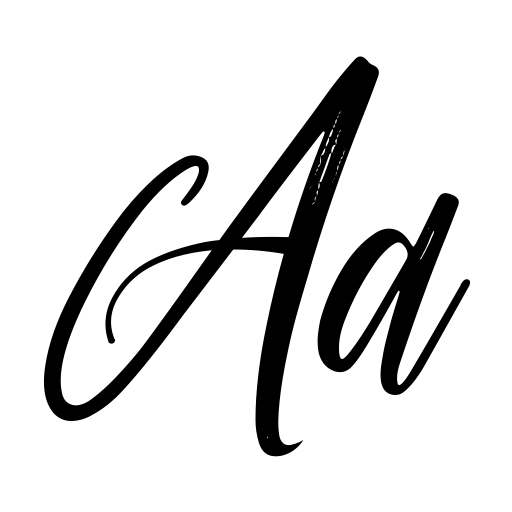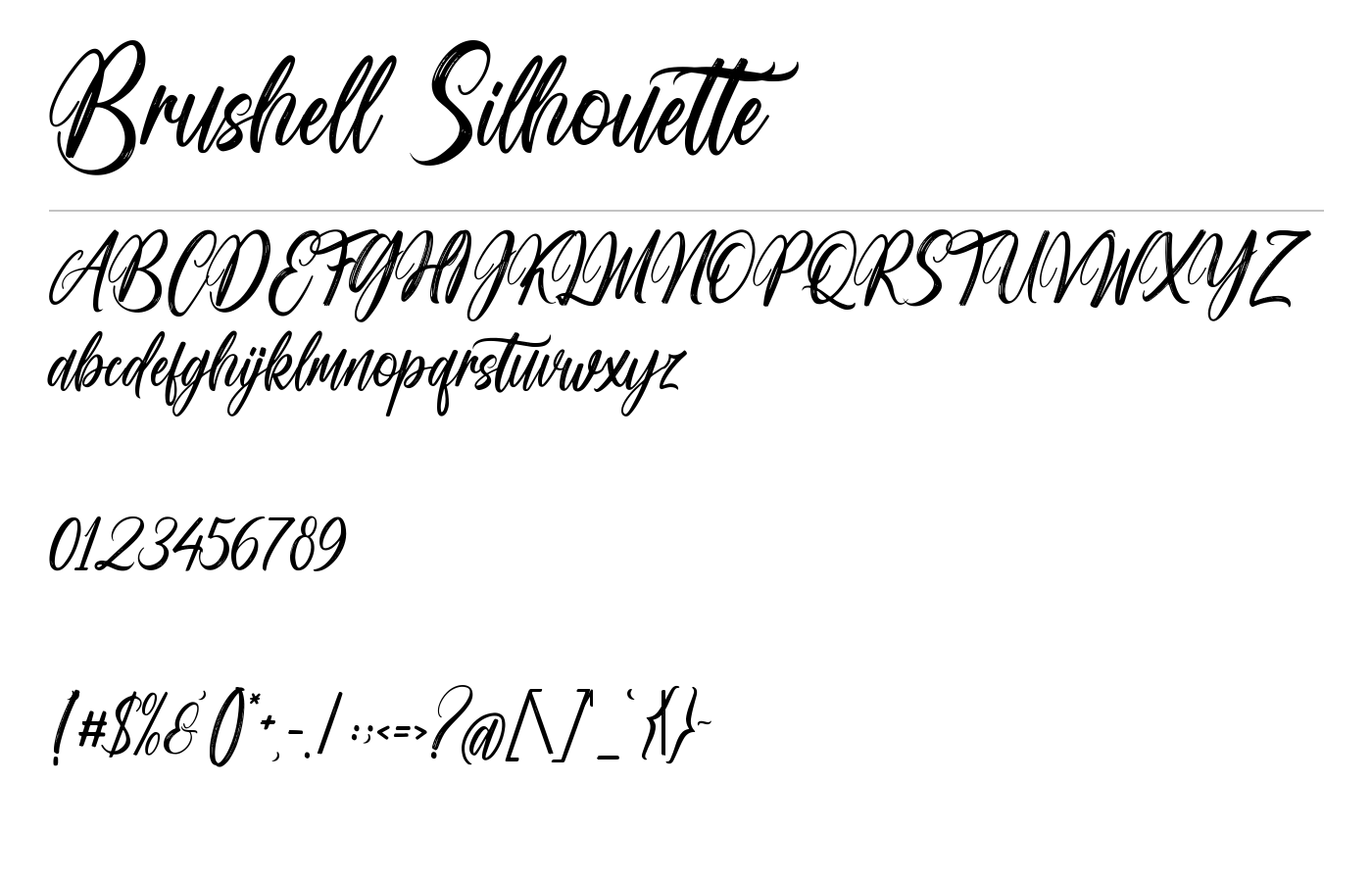
Brushell Silhouette is an elegant script font that mimics smooth, hand-painted brush strokes with its flowing, connected letterforms and varied stroke widths. It carries a stylish, modern vibe with high contrast between thick and thin lines, making it perfect for branding, invitations, and creative headlines that seek a personal, artistic touch. Its natural curves and delicate details lend warmth and sophistication, ideal for fashion, beauty, and lifestyle projects.
Brushell Silhouette Font
About Brushell Silhouette Font
| Font family | Brushell Silhouette Font |
| Designer | Aveni Yuanita |